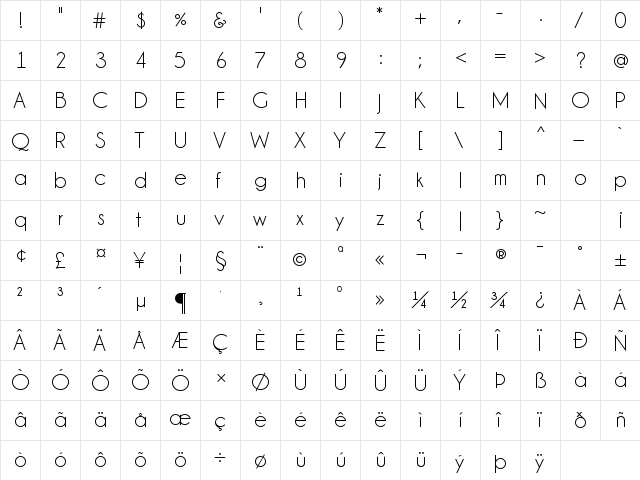
Champagne & Limousines Regular
Design Context for Champagne & Limousines Typeface
Champagne & Limousines offers clean, dependable letterforms without strong stylistic allegiance, making it a practical choice for designers who need flexibility.